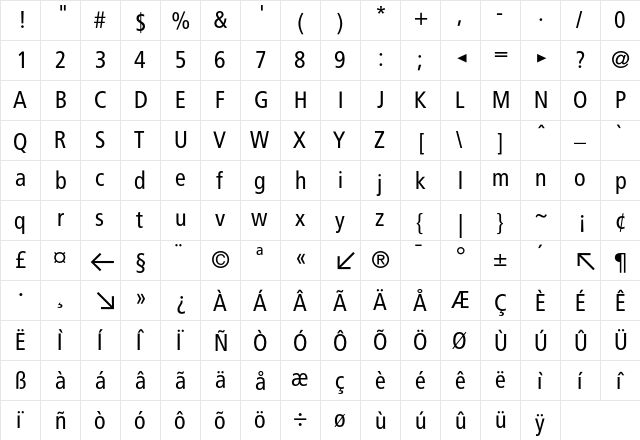
BVGNegHin Regular
Design Context for BVGNegHin Typeface
BVGNegHin takes a measured approach to typography — its balanced proportions and neutral character make it a reliable workhorse for both digital and print work.